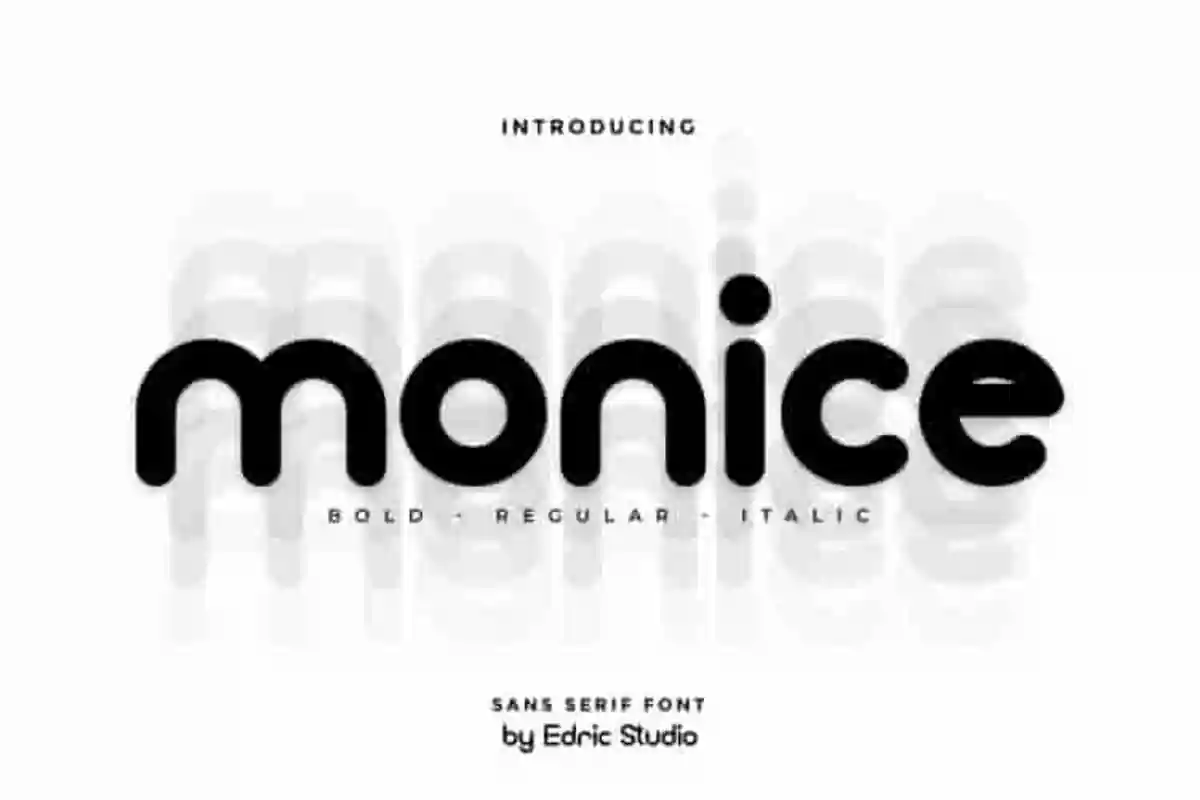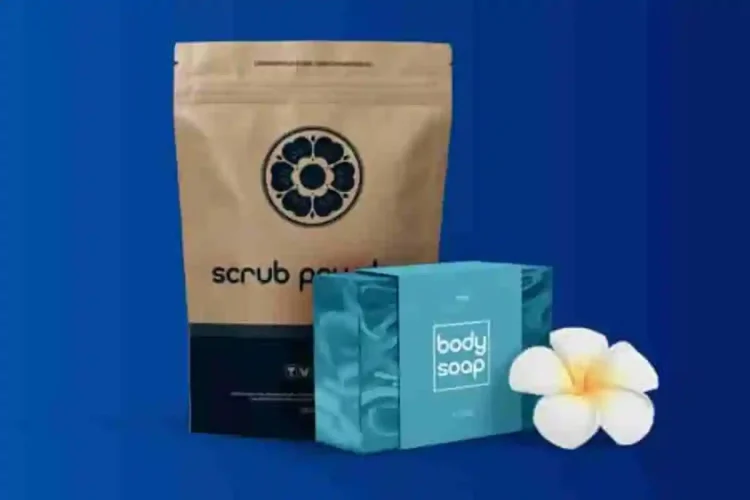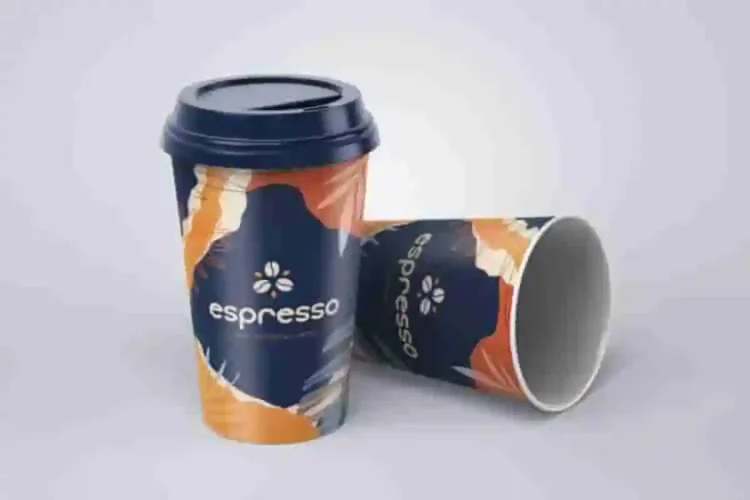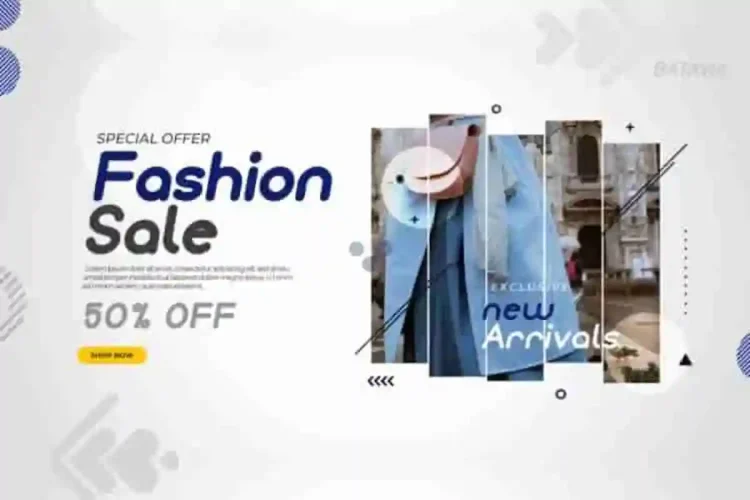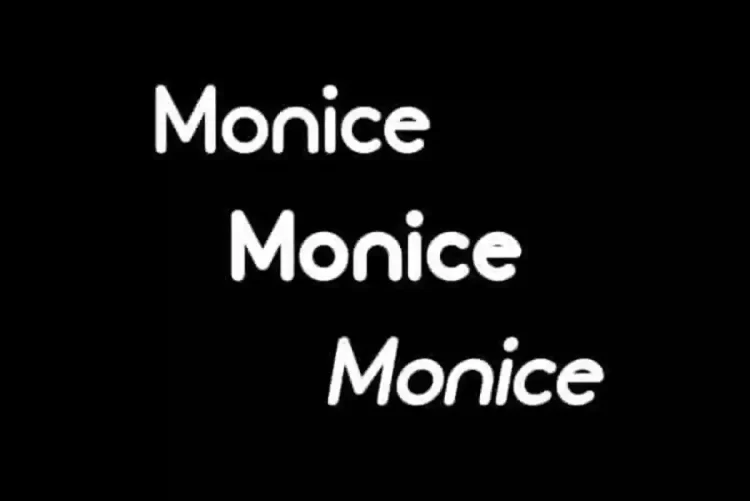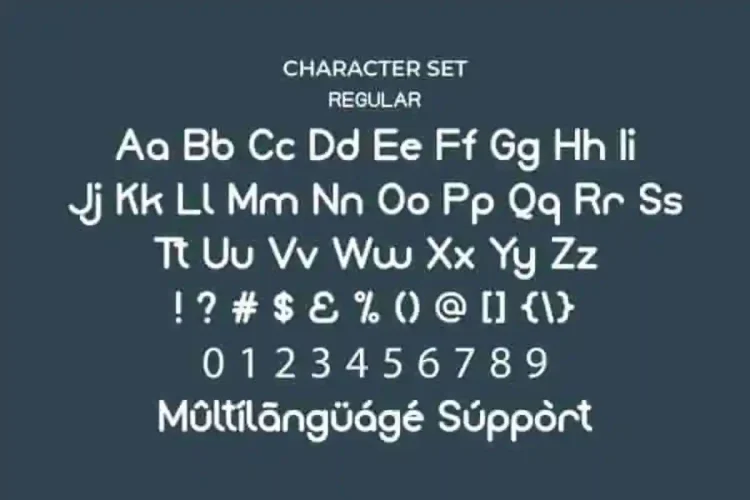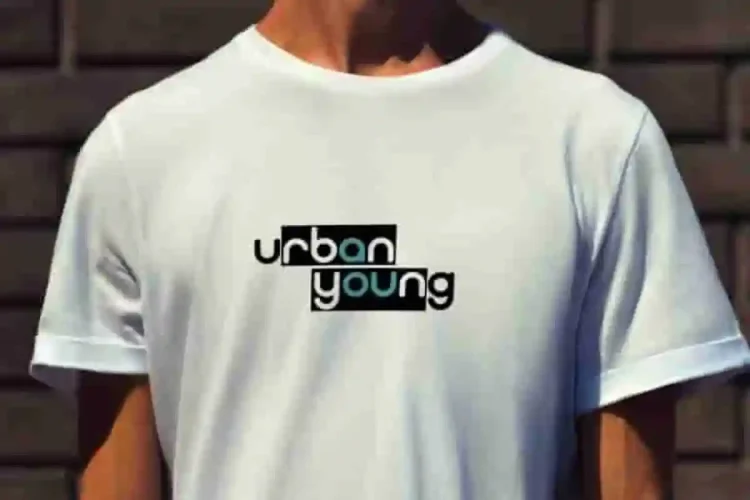
Monice Sans Serif Display Font
Monice Font Sans Serif Font is a modern sans serif typeface with casual style. The style of this font are elegant,  modern, stylish, minimal and simple style. This is a display sans serif font, handcrafted from our Studio here in, Indonesia. The artists/designers of this beautiful typeface is Renata and Sarah Suci. Monice Font will be great for any projects including : branding, logo, stationery, business card, signage, flyer, brochure etc.